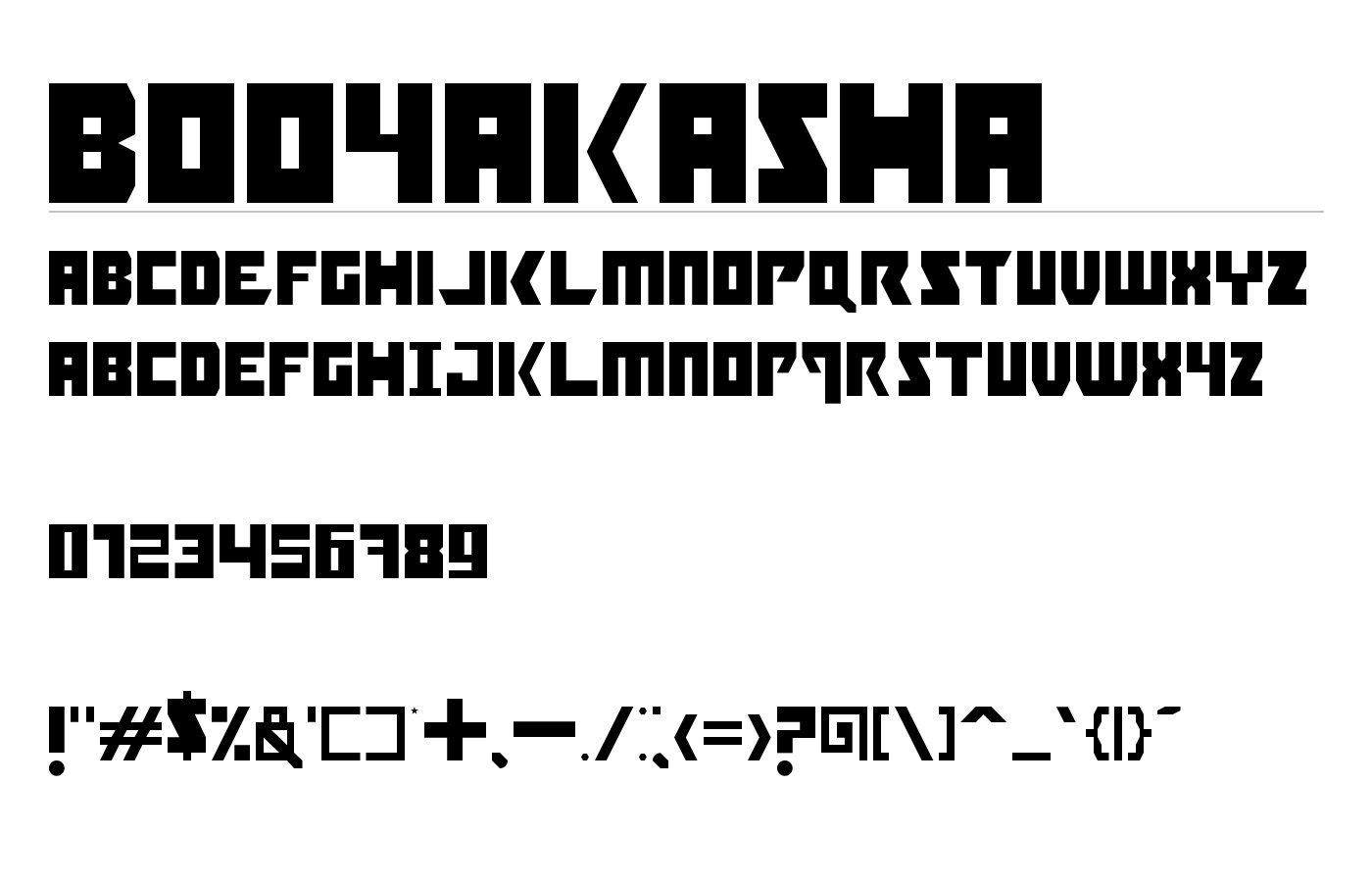
Booyakasha is a bold, condensed sans serif font with a strong geometric style and sharp angles that create a striking, modern look. Its uniform stroke weight and compact letterforms make it perfect for attention-grabbing headlines, logos, and posters where a powerful, edgy personality is desired. This font’s unique shapes give it a dynamic and urban feel, ideal for brands seeking a confident and contemporary vibe.
Booyakasha Font
About Booyakasha Font
| Font family | Booyakasha Font |
| Designer | Jason Muriithi Kiama |